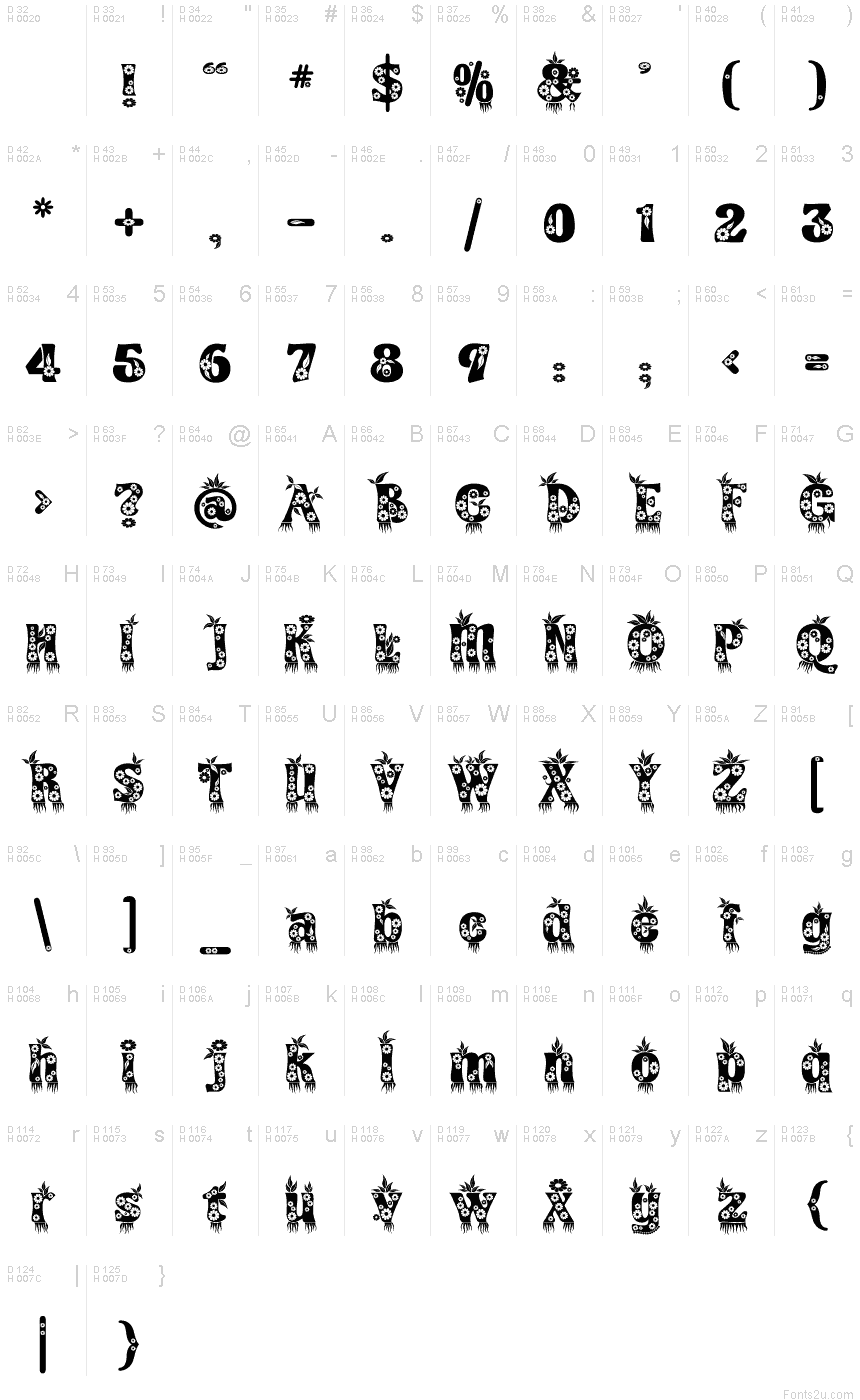
Kingthings Annex
Kingthings Annex font by Kevin King is a free decorative display typeface that turns every word into a tiny overgrown garden. Chunky black letterforms burst with daisy-like blooms, curling leaves, and root-like fringes that feel hand‑cut and crafty rather than digital and sterile. It has a playful 60s poster vibe—bold, busy, and joyfully maximal—so a few letters go a long way in grabbing attention.
Using Kingthings Annex, your titles instantly suit spring festivals, eco‑events, gardening clubs, craft fairs, children’s posters, or whimsical packaging. This free font shines when set large, where the floral details and rooty bases can really breathe; keep supporting text in a simple sans serif to let the decorative letters be the hero.
An 'organic style font originally designed in 1981